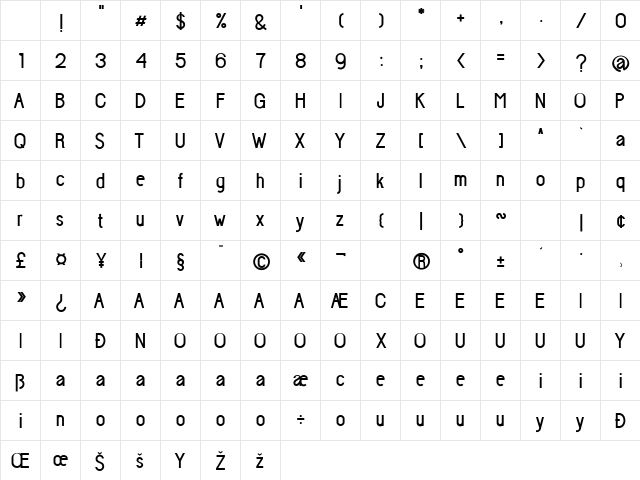
Progelud is a composed and adaptable typeface that performs quietly and consistently across a wide range of design contexts.
Pro Tip: Use Progelud in both headline and body roles to test its range before committing to a single application.